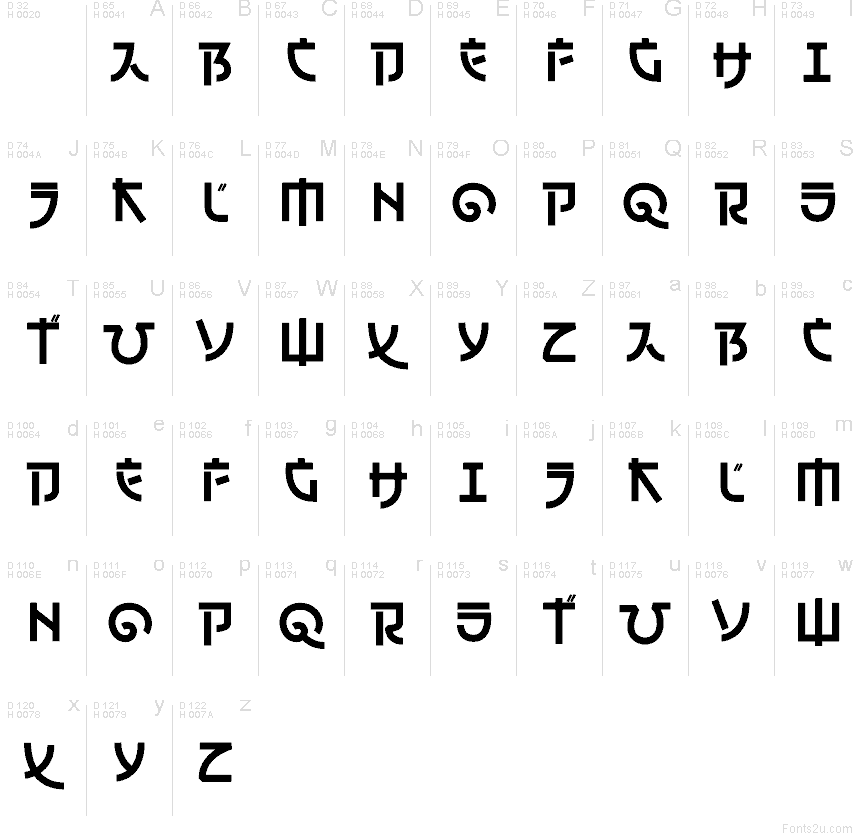
Morioka font by Mocha Frappuccino of Lettercornerstudio is a free faux-Japanese decorative typeface that instantly gives Latin letters an East-Asian-inspired twist. Chunky strokes, tight curves, and those playful, hooked endings create a bold rhythm that reads clearly while still feeling exotic and stylized. The geometry feels sturdy and blocky, but the rounded inner shapes add a soft, inky warmth that keeps it from looking cold or mechanical.
Using Morioka, you can anchor everything from ramen shop logos and food-truck signage to anime event posters, streetwear graphics, packaging, and game titles that need a stylized “neo-Tokyo” mood. This free font shines at larger sizes where its shapes can breathe; pair it with a clean, neutral sans for body text so Morioka can stay the star of the layout.